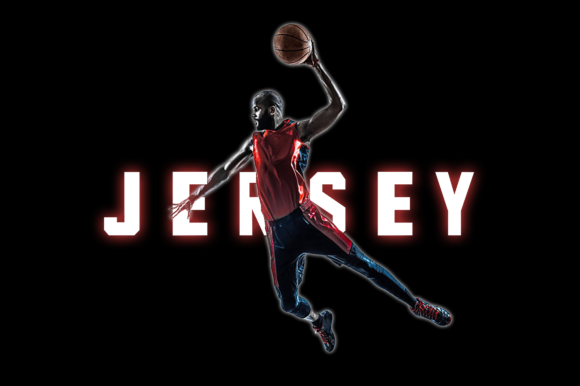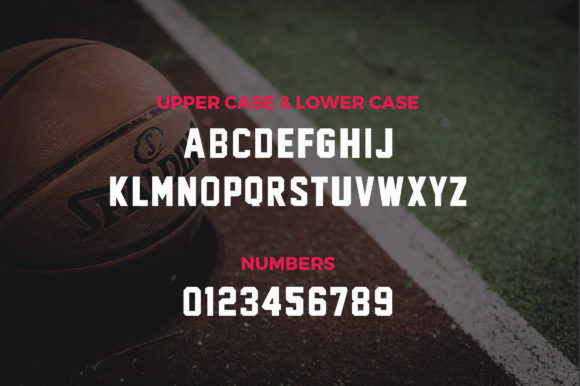
Athletica Font: The Ultimate Display Font for Sports and Adventure Projects
Are you looking for a font that can add a bold and assertive touch to your sports, games, dance, or adventure projects? Look no further than the Athletica font. This display font is designed to make a statement, with thick letters that exude confidence and energy. In this article, we’ll explore the features and benefits of the Athletica font, and why it’s a must-have for designers and crafters.
What is Athletica Font?
Athletica is a bold, thick lettered, and assertive display font that is perfect for creating eye-catching headlines, titles, and captions. Its sturdy and robust design makes it ideal for use in sports, games, dance, and other adventurous activities. Whether you’re designing a logo, brochure, or social media post, Athletica font is sure to grab attention and leave a lasting impression.
Key Features of Athletica Font
- Bold and Assertive Design: Athletica font features thick letters that are designed to make a statement. Its bold and assertive design makes it perfect for creating eye-catching headlines and titles.
- High Versatility: Athletica font is highly versatile and can be used for a wide range of projects, from sports and games to dance and other adventurous activities.
Benefits of Using Athletica Font
So why should you use Athletica font for your projects? Here are just a few benefits:
- Adds a Professional Touch: Athletica font adds a professional touch to your projects, making them look polished and high-quality.
- Grabs Attention: The bold and assertive design of Athletica font grabs attention and draws the viewer in.
- Increases Engagement: By using Athletica font, you can increase engagement and encourage viewers to take action.
- Elevates Your Brand: Athletica font can help elevate your brand by giving it a bold and assertive personality.
Tips and Tricks for Using Athletica Font
Here are some tips and tricks for using Athletica font:
- Use it for Headlines: Athletica font is perfect for creating eye-catching headlines and titles.
- Experiment with Colors: Experiment with different colors to find the one that works best for your project.
- Combine with Other Fonts: Combine Athletica font with other fonts to create a unique and interesting design.
In conclusion, Athletica font is a bold, thick lettered, and assertive display font that is perfect for sports, games, dance, and other adventurous activities. Its highly versatile design makes it easy to use for a wide range of projects, and its ease of use makes it a great choice for designers and crafters. With its professional and eye-catching design, Athletica font is sure to elevate any creation and make it stand out from the crowd.